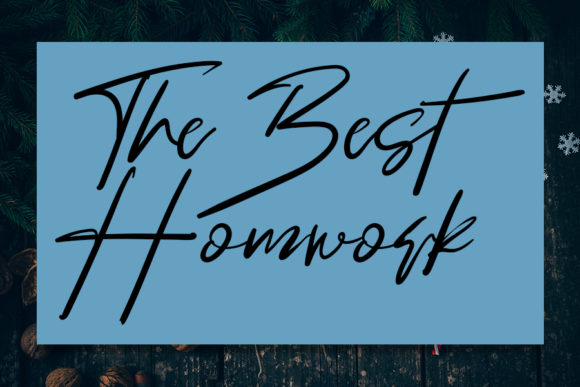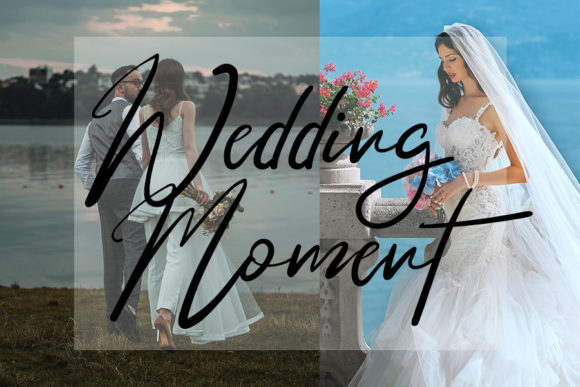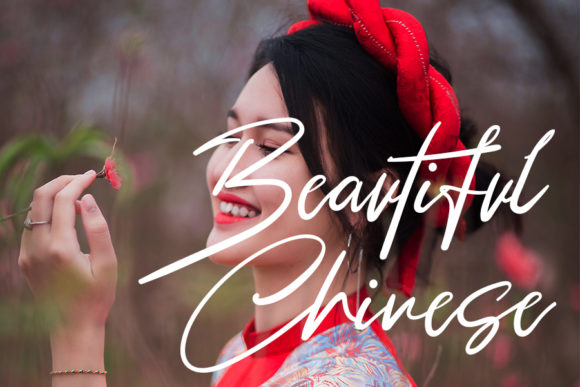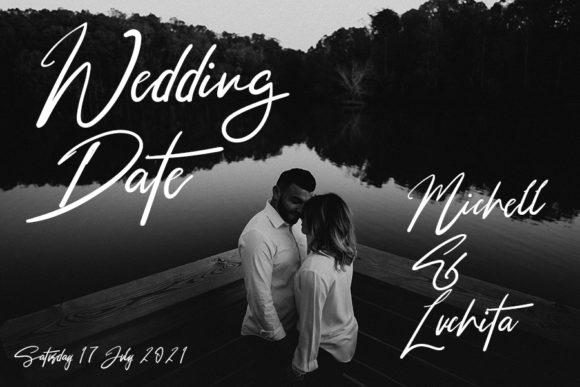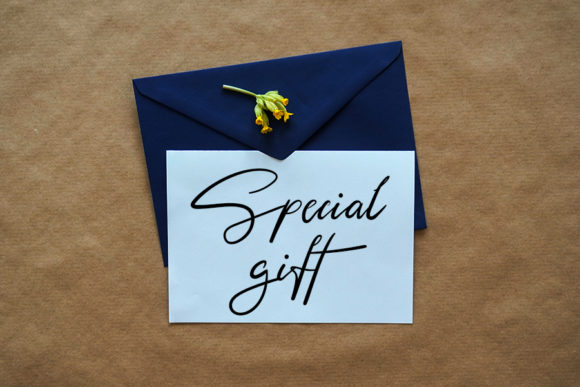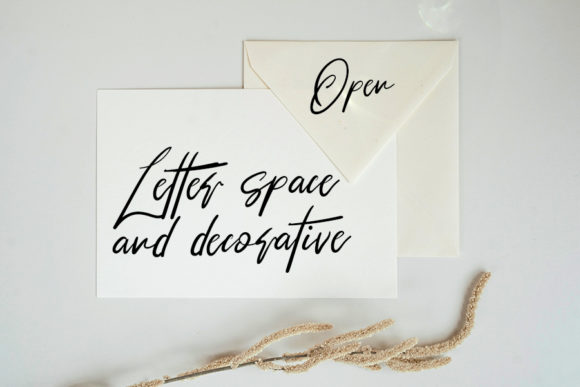
The Perfect Font for Your Next Design Project
Have you ever been working on a design project, pouring your heart and soul into it, and suddenly, the perfect font pops into your mind? That’s exactly what happened to us when we discovered the Atanohawa Bogasiya Font. This charming cursive handwritten font is the ultimate addition to any design, adding a touch of whimsy and romance to your creations.
Whether you’re working on a wedding invitation, a baby announcement, or a simple greeting card, the Atanohawa Bogasiya Font is sure to bring a smile to your face and a touch of joy to your design. Its relaxed and cursive style makes it perfect for adding a personal and intimate feel to your projects. With its versatility and charm, this font is a must-have for any designer looking to add a little extra magic to their designs.
Atanohawa Bogasiya Font Key Features
- Font Family: Atanohawa Bogasiya, a unique and elegant script font.
- Character Set: Supports a wide range of characters, including Latin, Cyrillic, and Greek alphabets, as well as various punctuation marks and symbols.
- Unique Characteristics: Atanohawa Bogasiya features intricate, hand-drawn strokes and flourishes, giving it a distinctive and artistic touch.
Atanohawa Bogasiya Font Review
Overall, I found the Atanohawa Bogasiya font to be an interesting choice for designers looking to add some cultural flair to their work. Here are my honest thoughts:
- Unique cultural inspiration: The font is heavily influenced by traditional Asian calligraphy, making it a great choice for designers who want to add a touch of cultural authenticity to their work.
- Good for headings: The font’s bold and expressive nature makes it well-suited for headings and titles, where it can really shine.
- Customization options: The font comes with a range of customization options, including different weights and styles, which can be useful for designers who want to create a consistent look and feel.
- Limited legibility: In my opinion, the font’s unique style can make it difficult to read at smaller sizes or in certain contexts.
- Not suitable for body text: While the font is great for headings, it may not be the best choice for body text, where readability is key.
- Not as versatile as other fonts: While the font is well-suited for certain types of projects, it may not be as versatile as other fonts that can be used in a wider range of contexts.
Overall, I think the Atanohawa Bogasiya font is a great choice for designers who want to add some cultural flair to their work. While it has its limitations, it’s a unique and expressive font that can really shine in the right context. With some careful planning and consideration, I think this font could be a great addition to any designer’s toolkit.
The Atanohawa Bogasiya font is well-suited for use in creative and artistic projects, such as:
Logo design
Brochure design
Poster